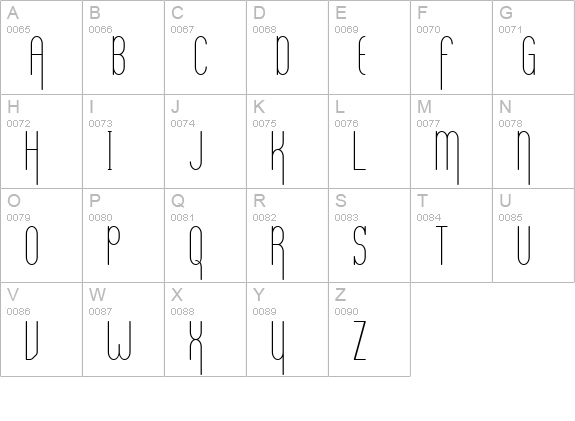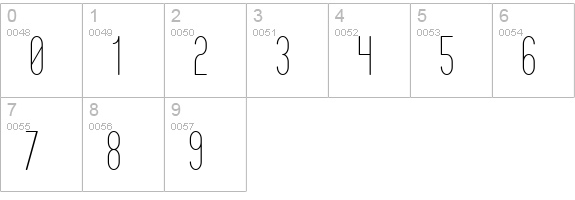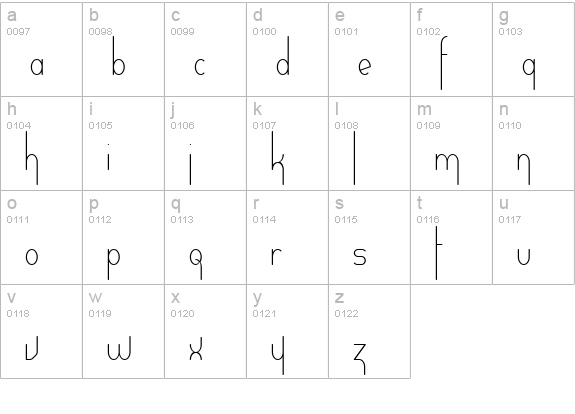
Verticalization Font Details
The Verticalization font is a contemporary and versatile typeface that embodies elegance and sophistication. Its sleek vertical strokes and clean lines create a sense of modernity, making it ideal for a wide range of design projects. Whether you're designing for print or digital platforms, this font will add a touch of professionalism to your creations. What sets Verticalization apart from other fonts is its unique ability to seamlessly blend into various design styles. From minimalist and sleek to bold and expressive, this font can adapt to any aesthetic, making it a must-have for designers seeking versatility. One of the most appealing aspects of Verticalization is that it is available for free download at FontsMarket.com. This means that you can access this exceptional font without any cost, allowing you to enhance your projects without breaking the bank. The freedom to use this font without any restrictions is a true gift for designers, enabling them to explore their creativity without limitations. With its extensive character set and multiple language support, Verticalization is perfect for crafting eye-catching headlines, elegant logos, captivating posters, and so much more. Its clean and legible design ensures readability at any size, making it suitable for both large-scale applications and small fine details. Whether you're a seasoned designer or just starting your creative journey, Verticalization is a font that will undoubtedly elevate your work. Its combination of versatility, elegance, and the fact that it is freely available to download at FontsMarket.com, makes it an essential addition to any designer's font library. Embrace the freedom to create captivating designs with the Verticalization font today.